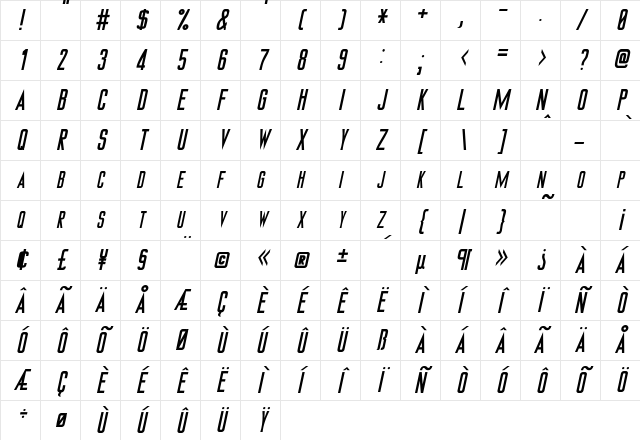
DemorestSCapsSSK Italic
Design Context for DemorestSCapsSSK
DemorestSCapsSSK is a composed and adaptable typeface that performs quietly and consistently across a wide range of design contexts. The slanted form adds forward momentum and visual energy.
Pro Tip: Use DemorestSCapsSSK for emphasis, pull quotes, and subheadings where its slanted energy can add rhythm to the layout.